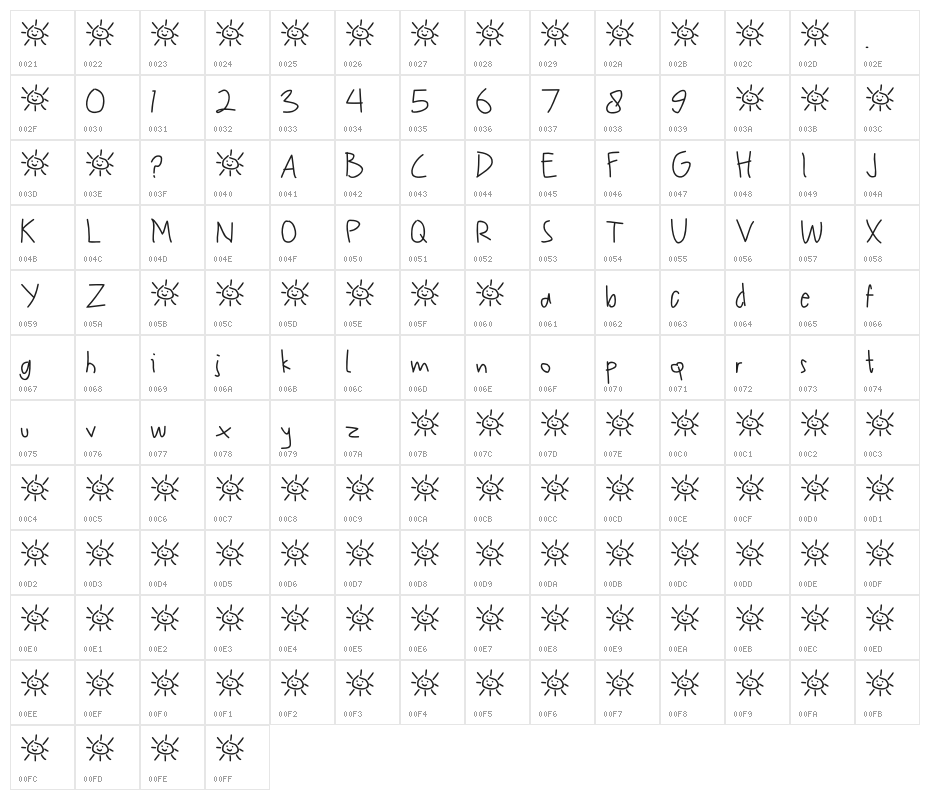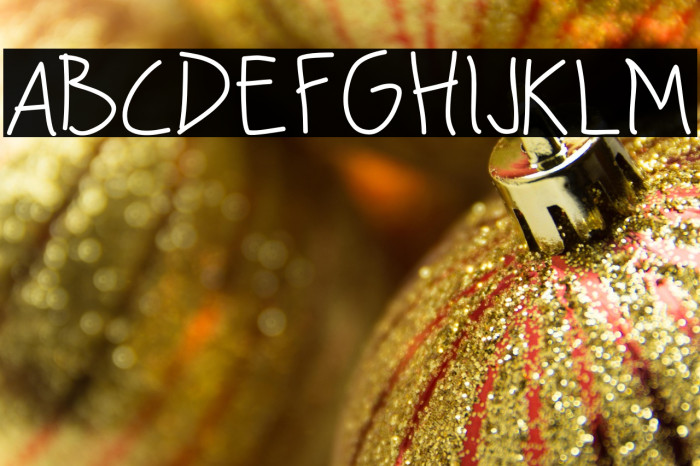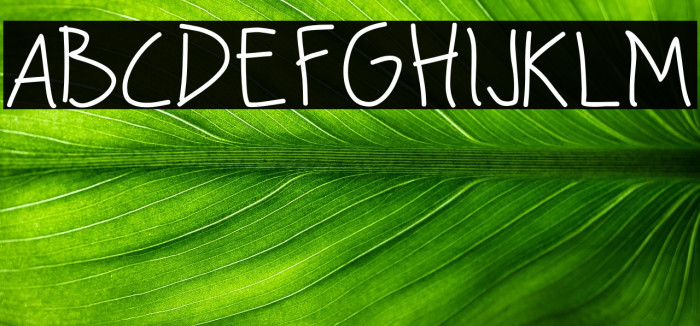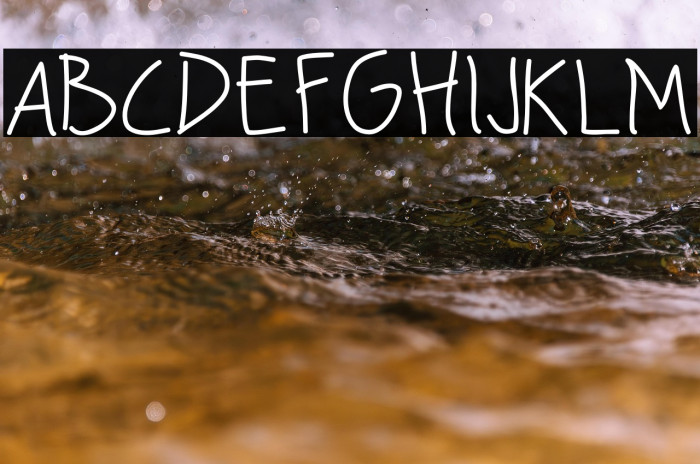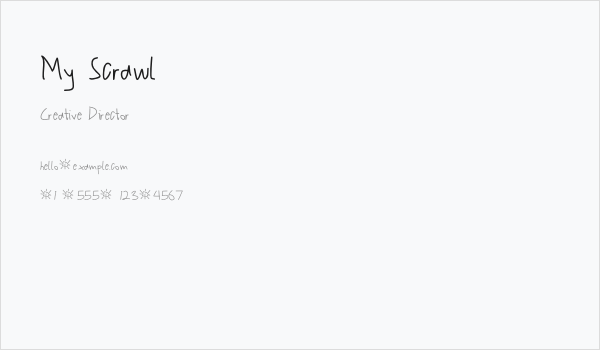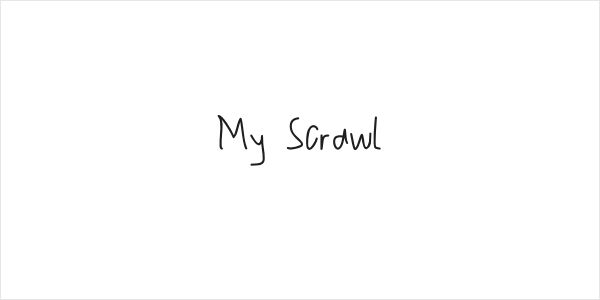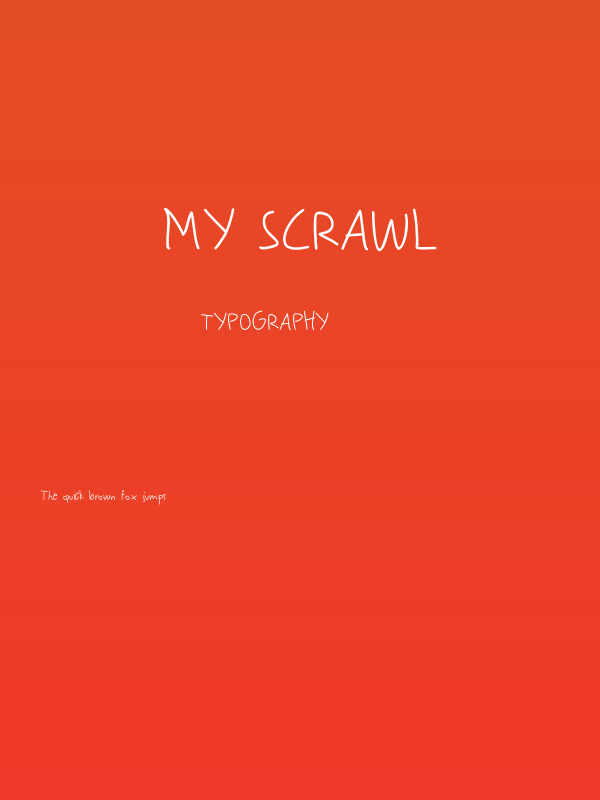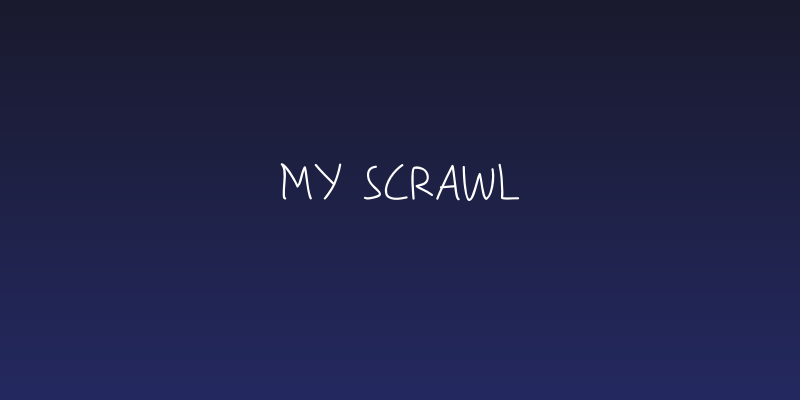
My Scrawl Font
My Scrawl Description
This playful, handwritten font features a casual and informal style, reminiscent of a personal scrawl or doodle. The letters are slightly irregular, adding a whimsical charm and a sense of authenticity. The uppercase and lowercase characters maintain a consistent flow, with rounded edges and a friendly appearance. The numbers and special characters follow the same informal style, making the font versatile for creative projects. Its unique personality makes it ideal for designs that require a personal touch or a fun, approachable vibe.
| Overall Style | Casual, Whimsical |
| Use Case | Headlines, Informal text, Creative projects |
| Proposed Projects | Ideal for children's books, greeting cards, personal blogs, and creative branding projects. |